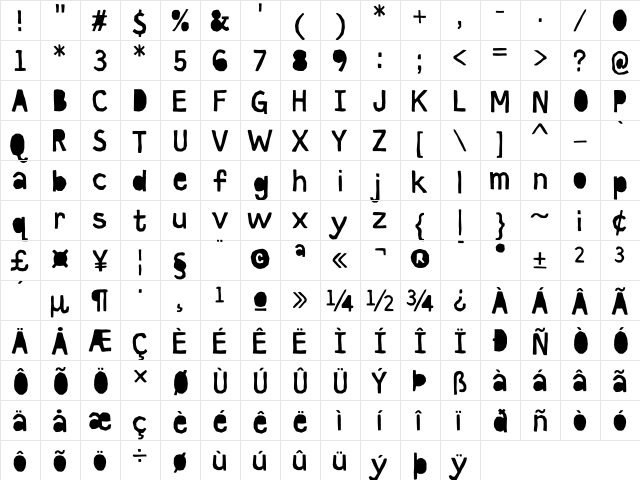
Cut it out DEMO Soft
| Foundry | Jakob Fischer / pizzadude.dk |
| Designer | Jakob Fischer / pizzadude.dk |
Design Context for Cut it out DEMO Typeface
Cut it out DEMO is a composed and adaptable typeface that performs quietly and consistently across a wide range of design contexts.